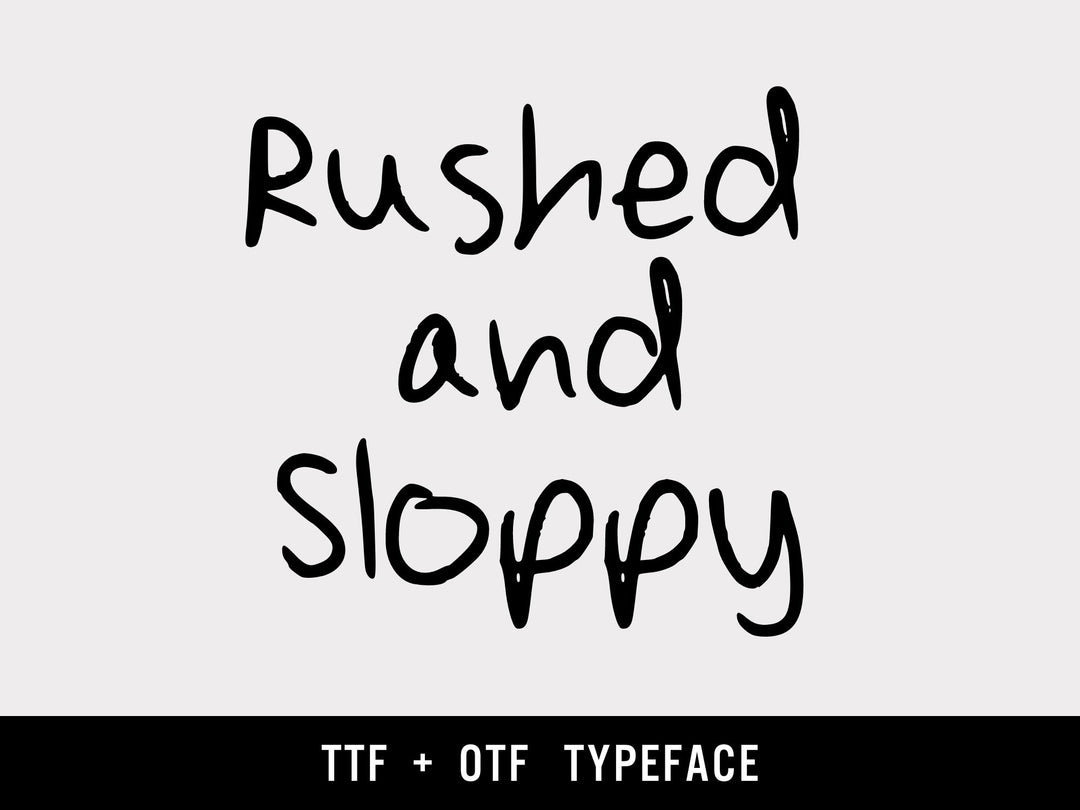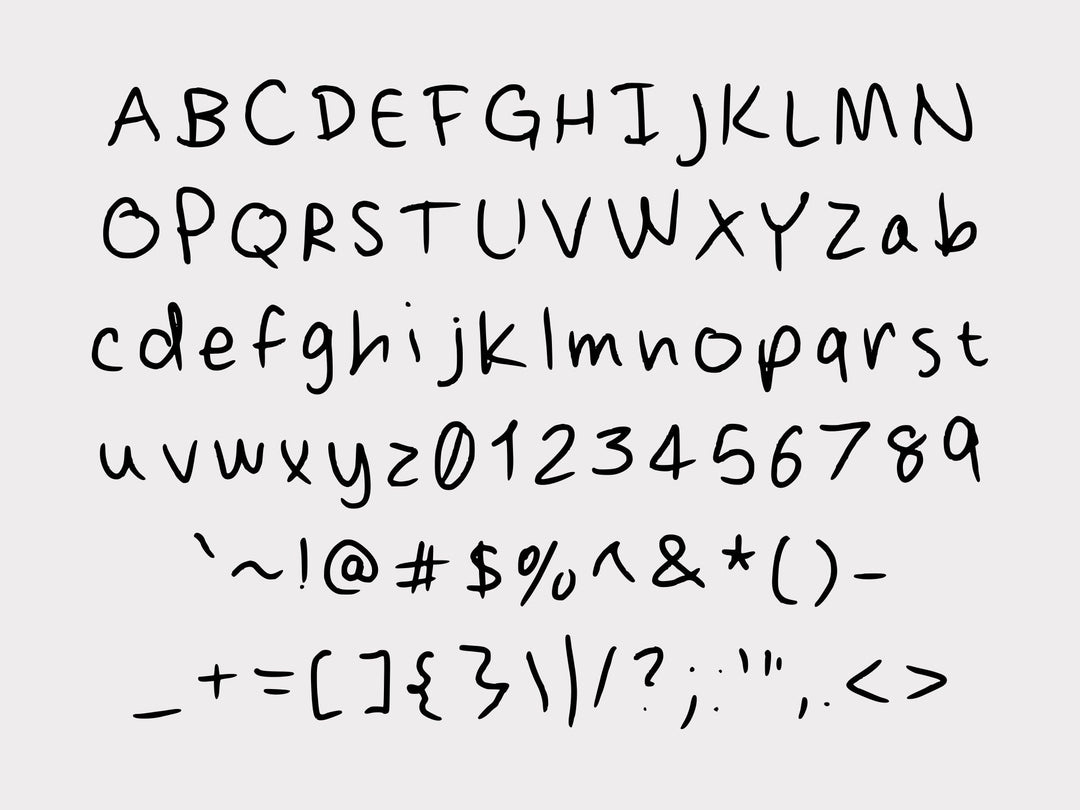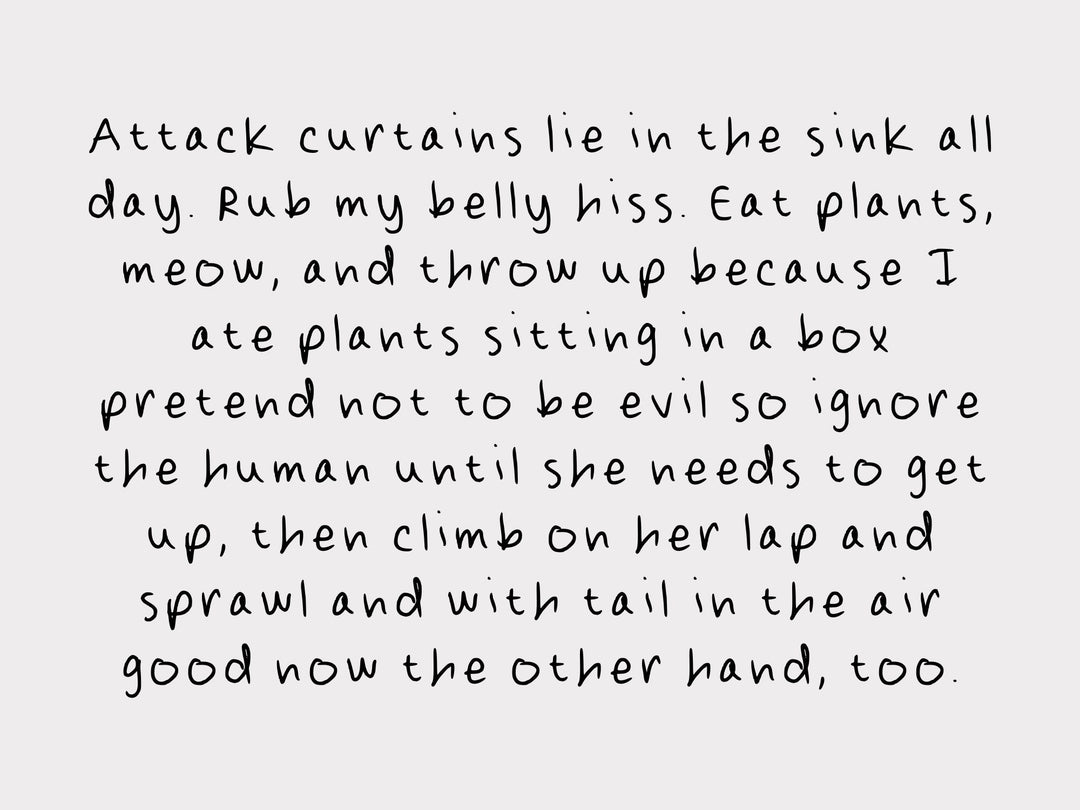
Rushed and Sloppy is exactly what it sounds like — a deliberately messy, fast-scrawled handwriting font that looks like you wrote it mid-sprint.
It's the perfect choice when you want something that feels human and imperfect: ransom notes, punk zines, protest signs, casual product labels, or any design that shouldn't look too polished.
- Full A–Z uppercase and lowercase, numbers, and standard punctuation
🎨 Style:
Irregular baseline, uneven stroke width, wobbly letterforms. Controlled chaos — looks sloppy, but it's fully readable at any size.
- Zine and punk-aesthetic layouts
- Casual product labels and stickers
- Halloween and horror designs
- Social media graphics
- T-shirts, tote bags, hats